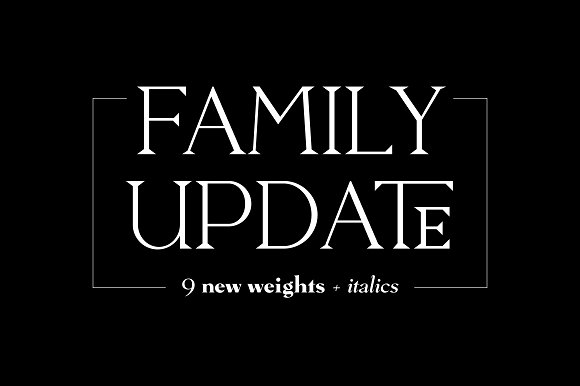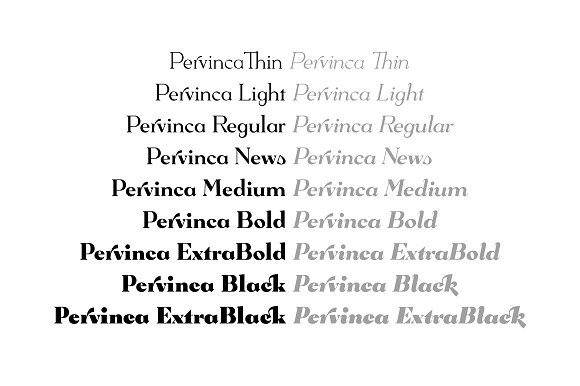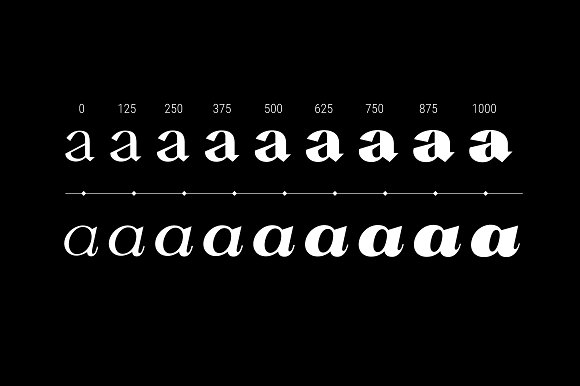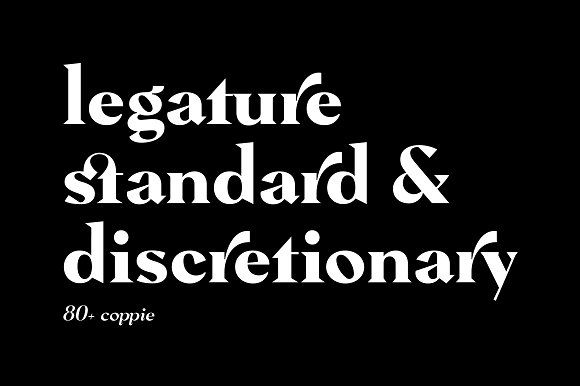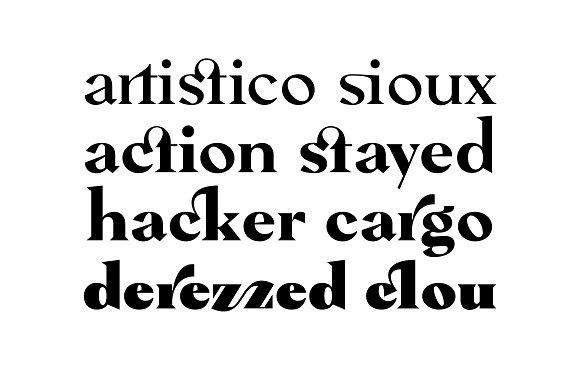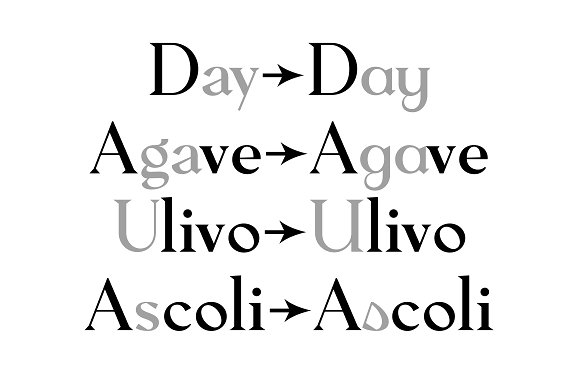
Introduction to Pervinca Font
Have you ever stared at a blank canvas, waiting for the perfect idea to strike? That’s where the Pervinca Font comes in – a game-changer for designers looking to elevate their creative project to the next level. This high-quality, sharp and geomatric didone font is more than just a design resource, it’s a key to unlocking pixel-perfect typography that demands attention.
Imagine working on a project that requires a clean, modern aesthetic, and you need a font that can deliver. That’s where the Pervinca Font shines, with its elegant simplicity and transparent background that makes it perfect for both digital and print applications. And the best part? You can download it for free, making it an invaluable asset for any designer looking to take their work to the next level.
- High-quality design suitable for creative projects, offering a unique and modern aesthetic.
- Features a clean and minimalist design, perfect for use in logos, branding, and typography-based projects.
Honest Review: Pervinca Font
As a designer, I’m always on the lookout for high-quality fonts that can elevate my creative projects. Recently, I had the chance to try out the Pervinca Font, and here’s my honest review.
- ✨ Elegant and sophisticated design that’s perfect for luxury branding
- ✨ High-quality font that’s scalable and crisp, even at small sizes
One of the standout features of the Pervinca Font is its transparent background, which makes it easy to use with a variety of design elements.
- ⚠️ Limited language support, which may be a drawback for designers working on international projects
- ⚠️ Not ideal for projects that require bold, sans-serif fonts
Overall, I’m impressed with the Pervinca Font’s design and quality. While it may not be the best fit for every project, it’s definitely a great addition to any designer’s toolkit.
Pervinca Font
The Pervinca Font is a high-quality, unique design resource ideal for creative projects. It’s available for free download, making it an excellent choice for designers and artists.
Tips for Getting the Most Out of Pervinca Font
To get the most out of the Pervinca Font, experiment with different text sizes, colors, and arrangements. This versatile font is perfect for creating eye-catching headings, titles, and other design elements.
The Pervinca Font is ideal for a variety of creative projects, including logos, business cards, social media graphics, and presentations. Its unique design and transparent background make it a valuable asset for designers and artists.